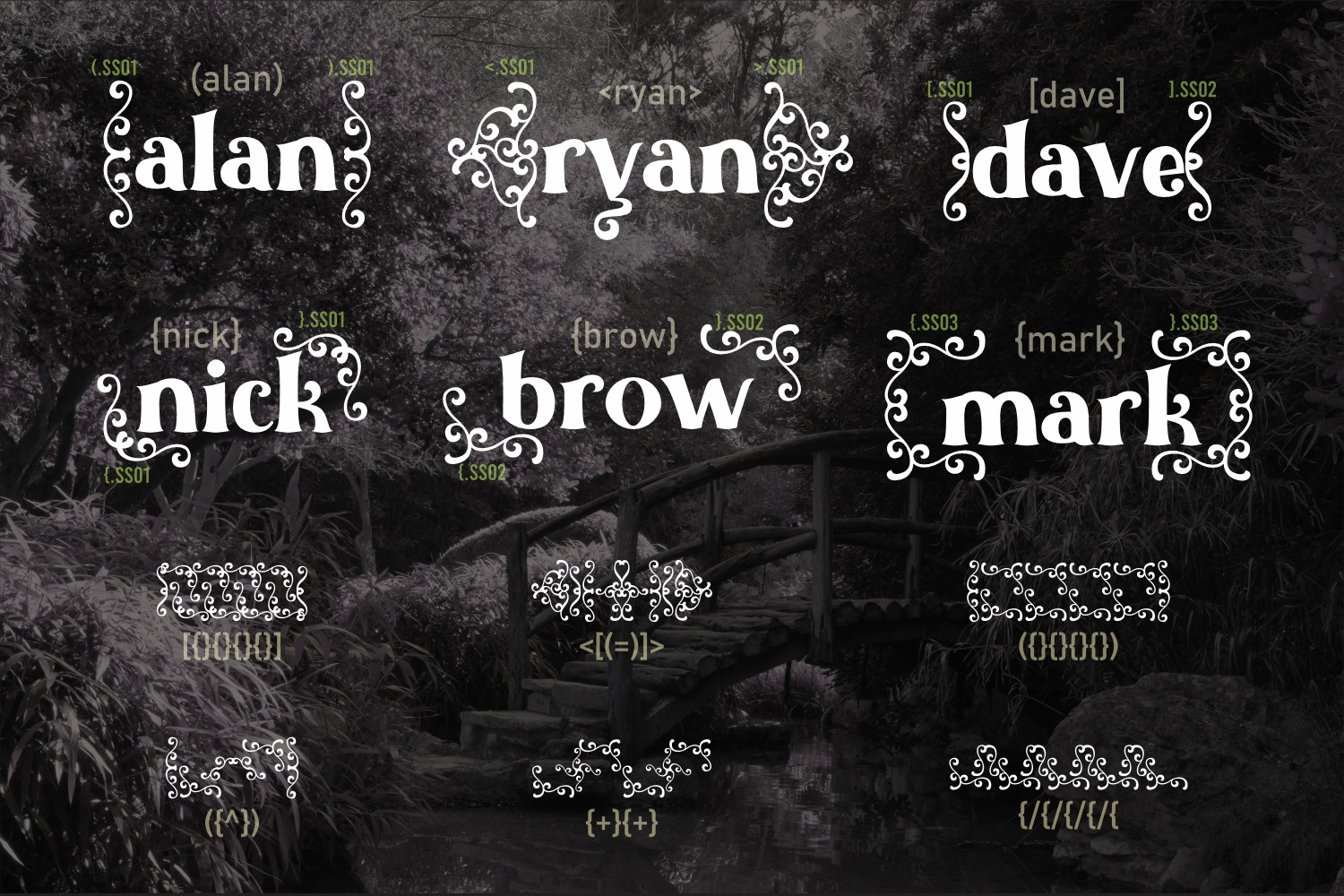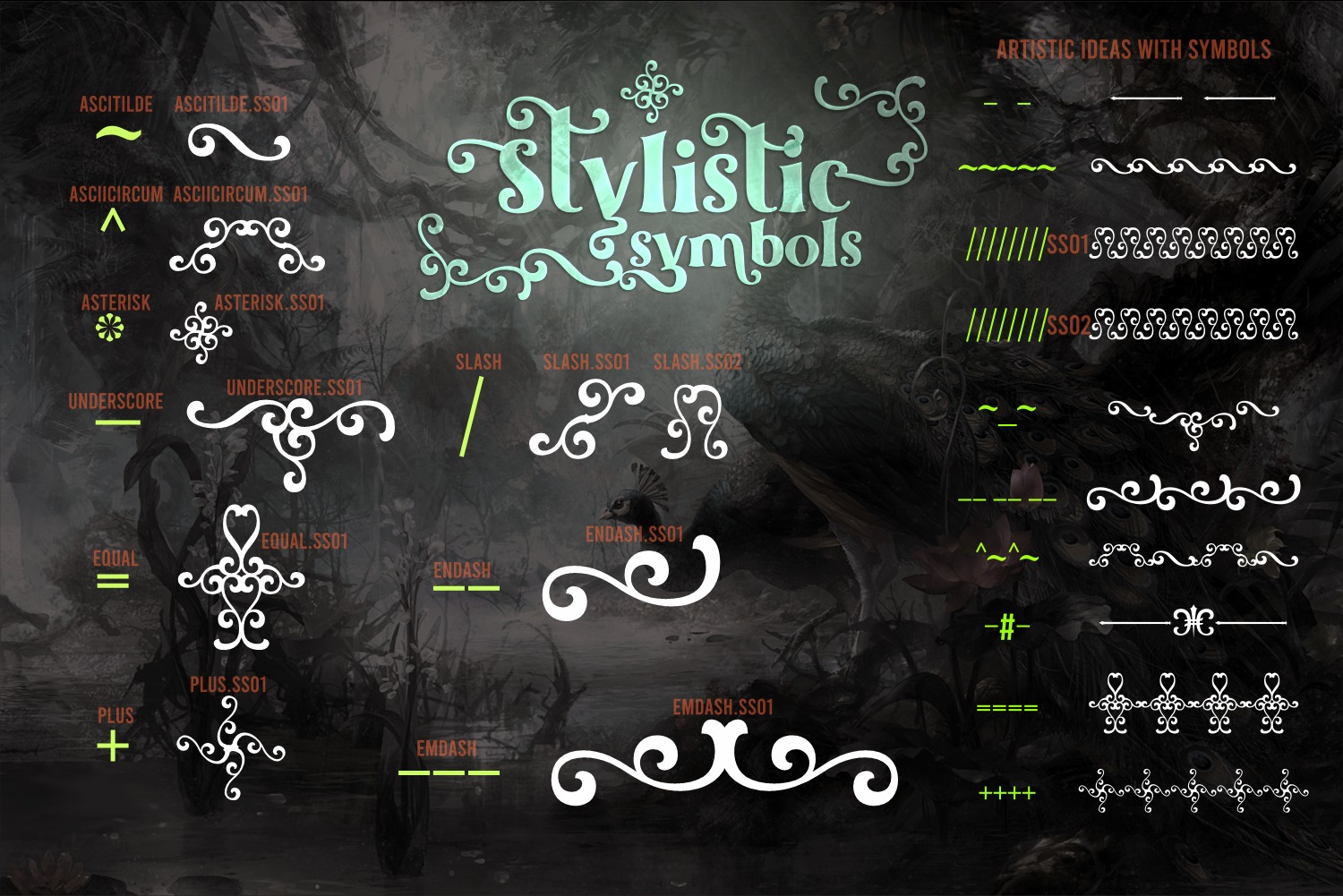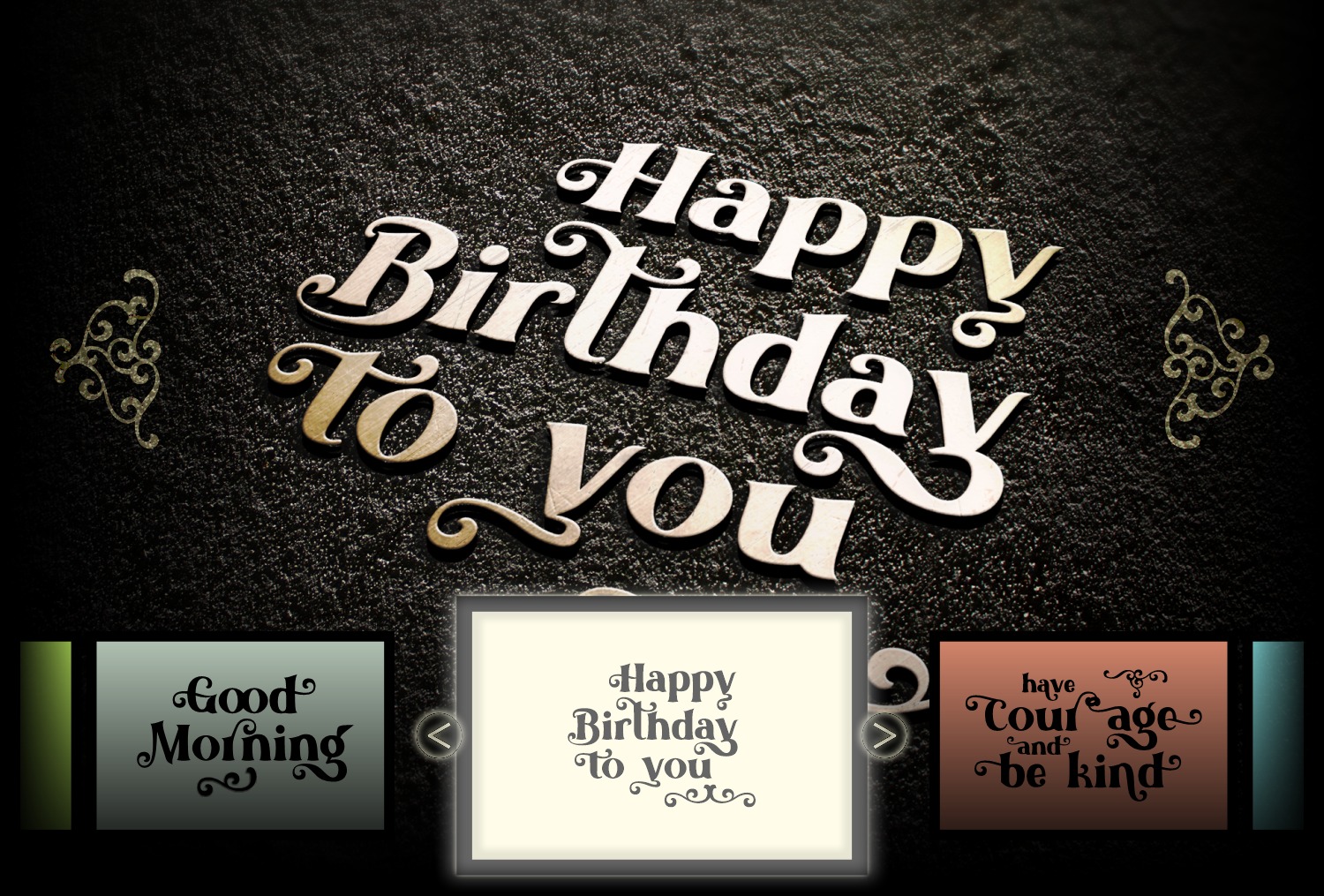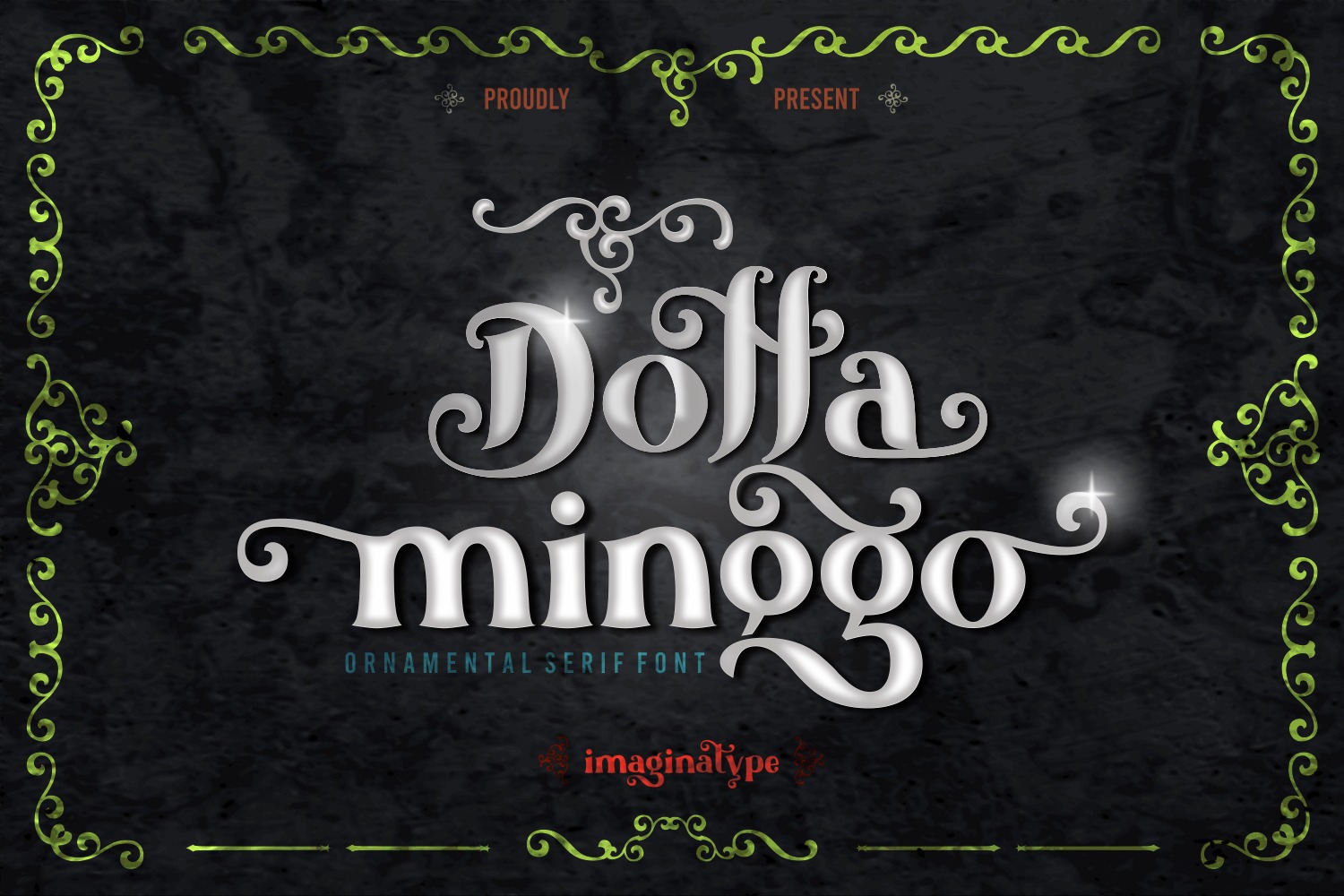
Doffaminggo Serif Font
This font is cute modern serif with modern and retro vibes. This is not so elegant serif, but more to playful serif. Add it with confidence to your projects, and you will love the results.